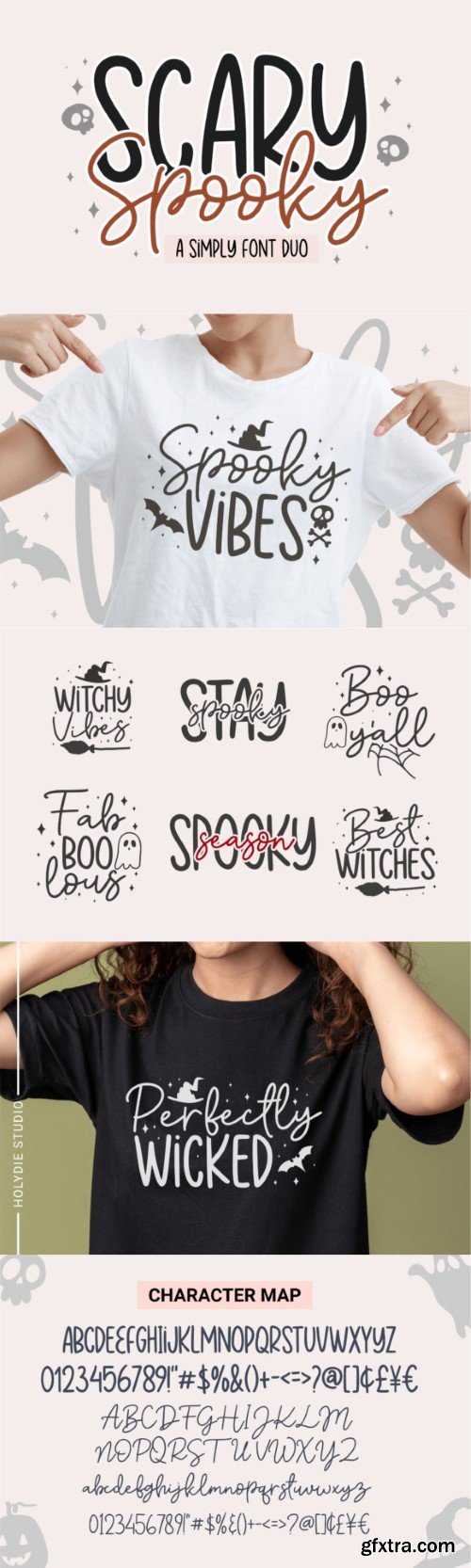
惊悚和恐怖字体
Scary and spooky is a fun and friendly font duo (script and sans serif). Quirky and spooky, this font is perfect for all your Halloween-related projects.